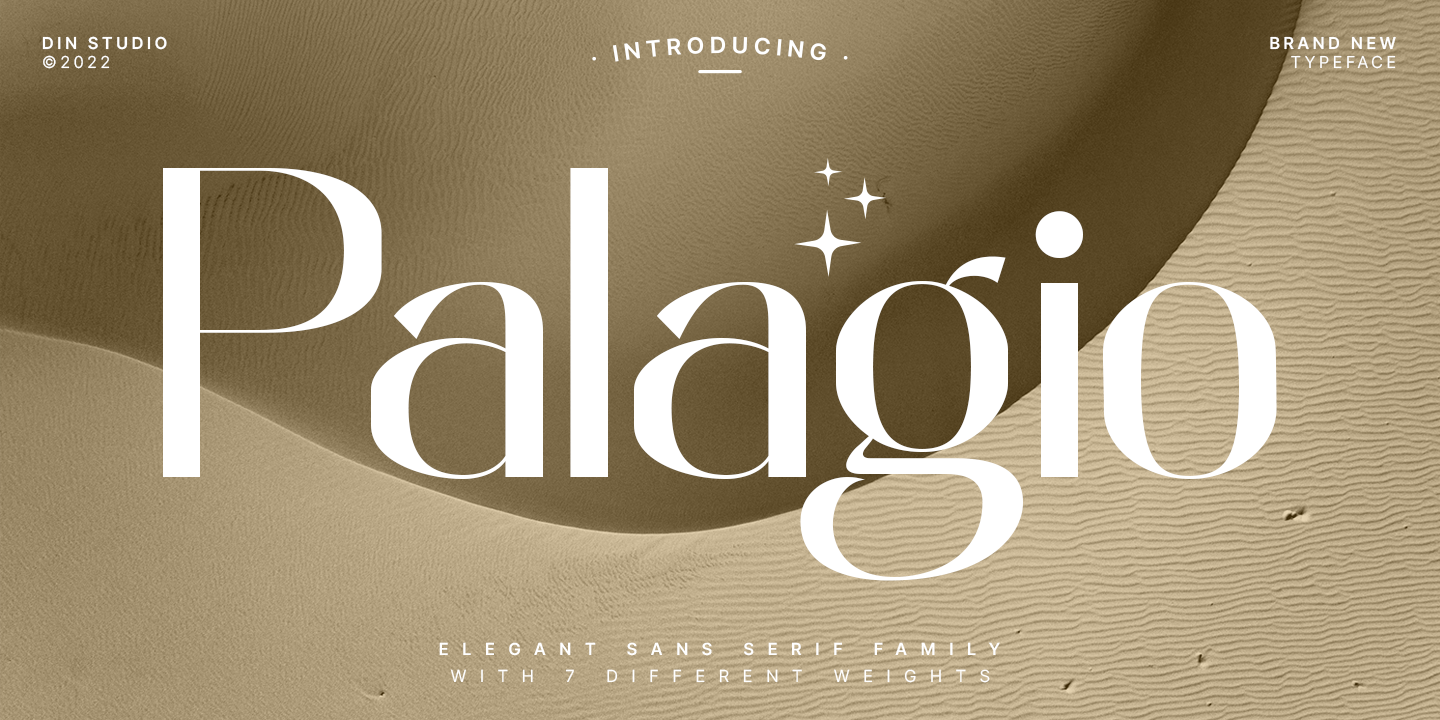
Palagio Font is ideal for luxury fashion branding, classical art exhibitions, museum signage, elegant wine labels, high-end jewelry packaging, historical book publishing, prestigious award ceremonies, fine dining restaurant menus, cultural institution branding, and sophisticated editorial design. This refined typeface brings timeless elegance and aristocratic charm to designs requiring classical sophistication and cultural refinement.
What makes Palagio Font exciting is its exquisite embodiment of Renaissance elegance and regal sophistication that transcends time. The font features graceful letterforms with classical proportions and ornate details that evoke the grandeur of Italian palazzos and European aristocracy. Its luxurious design elements include subtle flourishes and refined character construction that create an atmosphere of exclusivity and cultural prestige, perfect for brands seeking to convey heritage and aristocratic distinction.
Palagio Font comes in distinguished font families including Regular, Bold, Light, Italic, Ornamental, and Decorative variations. Each family member captures the majestic essence of classical typography while providing different stylistic options to create elegant hierarchies that honor traditional design principles and contemporary luxury standards.
Whether you're designing for luxury markets or creating culturally significant projects, Palagio Font Free Download offers unparalleled elegance and historical authenticity. The font's aristocratic character and timeless appeal make it an excellent choice for designers working on prestigious projects that need to communicate cultural heritage, luxury, and refined taste through typography that celebrates classical beauty and enduring sophistication.